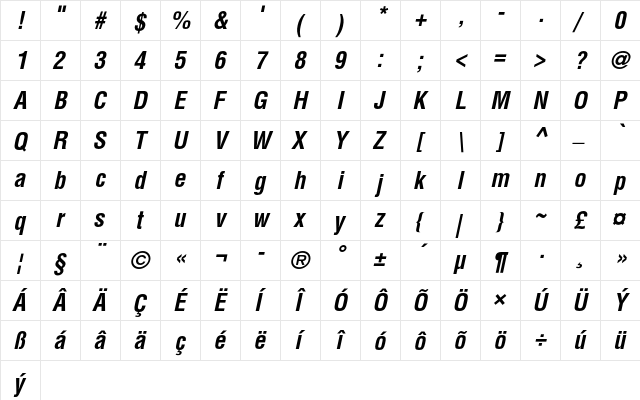
Helvetica CE Bold Condensed Oblique Font Preview
Design Context for Helvetica Typeface
Helvetica is a composed and adaptable typeface that performs quietly and consistently across a wide range of design contexts. The dynamic lean of this cut emphasises speed and emphasis in any layout. Its bold stroke weight gives it real presence on the page. The condensed width makes it efficient for tight spaces without sacrificing legibility.
Pro Tip: Try Helvetica for annotation and caption copy alongside an upright companion — the contrast in angle creates a dynamic but ordered typographic system.